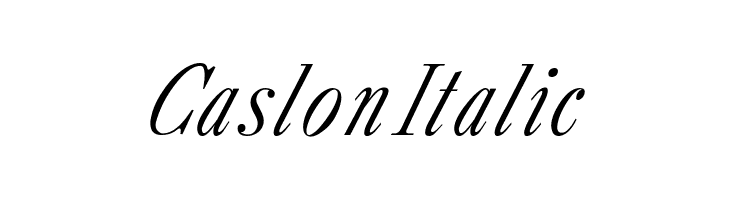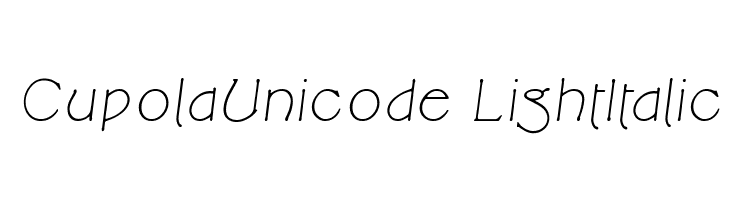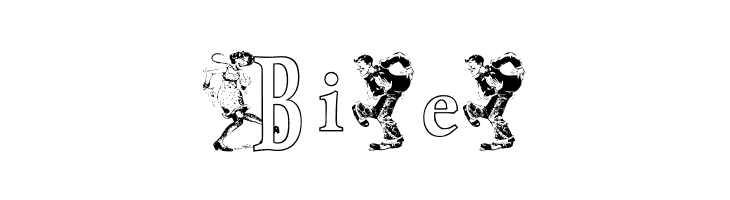
A light, elegant italic font with a modern and sophisticated style.
A playful, handwritten font with a whimsical and informal style.
A classic serif typeface with elegant, balanced letterforms and moderate contrast.
An elegant serif italic font with smooth, flowing lines and a classic appearance.
A bold, classic serif font with pronounced serifs and slight stroke contrast.
A whimsical, hand-drawn font with playful, irregular strokes and artistic flair.
A bold, decorative font with whimsical and vintage elements.
A bold, decorative font with a playful yet structured design.
An elegant, italicized font with medium contrast and flowing design.
A bold, decorative font with high contrast and artistic flair.